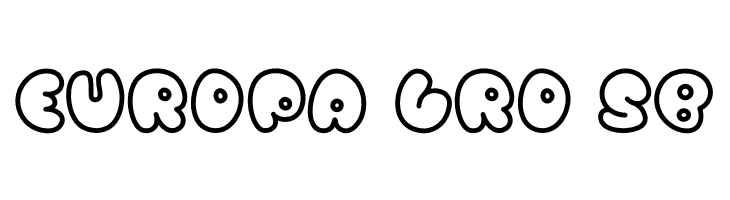
A playful, hand-drawn font with bold, rounded characters and thick outlines.
A playful, bubbly font with bold, rounded characters and a cartoon-like style.